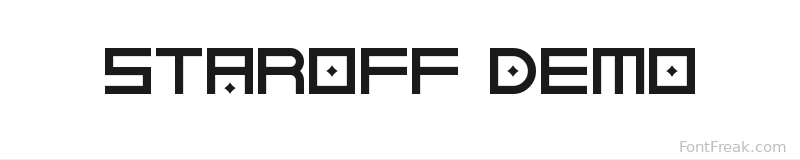
Staroff Demo
The Staroff Demo font by Noah Type is a striking display typeface that captures attention with its bold and contemporary design. This font features a unique sans-serif style characterized by clean lines and a geometric aesthetic, making it ideal for modern graphic projects. The stroke weight throughout the typeface is consistent, providing a sense of stability and coherence, while the slightly condensed spacing adds a touch of sophistication to its overall appearance. The visual characteristics of Staroff Demo are enhanced by subtle decorative elements that lend a playful yet professional feel, making it versatile for various applications.
Staroff Demo shines in several specific use cases. It is perfect for eye-catching movie posters that require a strong visual impact, as well as vibrant restaurant menus that want to convey a modern dining experience. Additionally, this font works beautifully for branding materials, such as logos and business cards, where a memorable impression is crucial. Content creators will find it suitable for social media graphics and promotional materials that demand attention and engagement. Moreover, graphic designers can leverage this font in web design projects, where readability and style are essential.
The target audience for the Staroff Demo font includes graphic designers, small business owners, and content creators who seek a font that combines modernity with versatility. The font's unique design elements make it stand out among competitors, offering a fresh take on display typography. Whether you are designing a bold advertisement or crafting an elegant invitation, the Staroff Demo font free download provides an excellent option for those looking to elevate their projects with a contemporary flair.